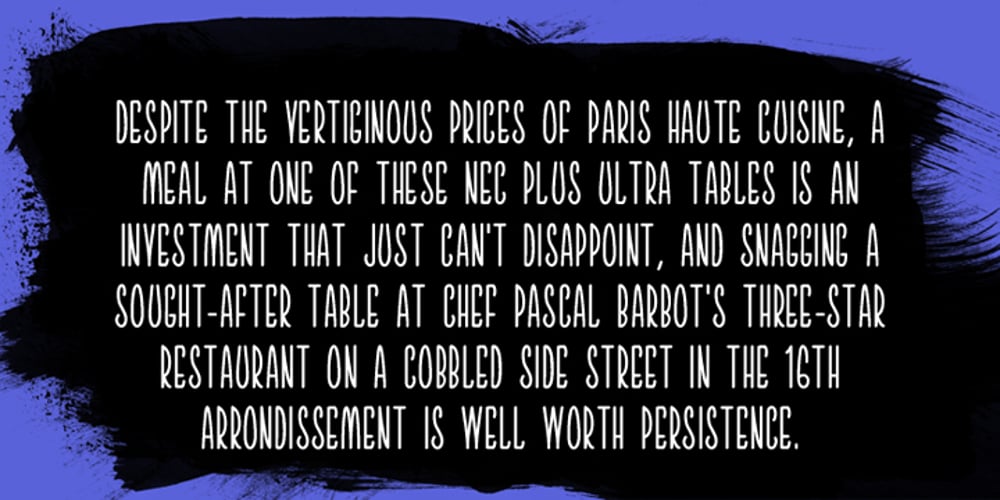
Patisserie
Patisserie font
Patisserie Font Family was designed by Alex Haigh, Dawn Lewandowski and published by HyperFluro. Patisserie contains 1 styles and family package options. Patisserie is exactly the font you might expect to see on chalkboards outside Parisian cafés; tall, elegant and enticing. The lithe, thin and graceful characters of this font compliment the hand-drawn style to create a typeface that is both casual and professional. Excellent for display work and larger sizes, to really show off the slightly rough edges, Patisserie supports over 26 languages with full punctuation and character sets. Step on in for a traditional, hand-made, French fontant, or whatever else you fancy.